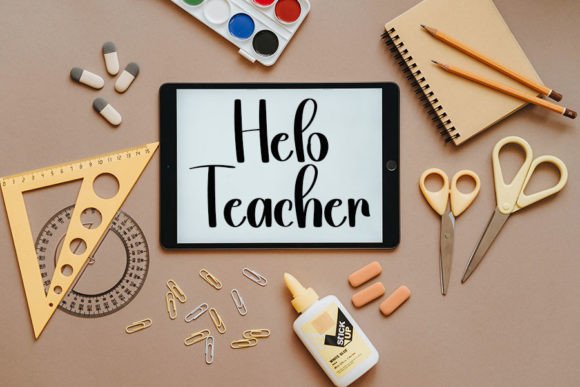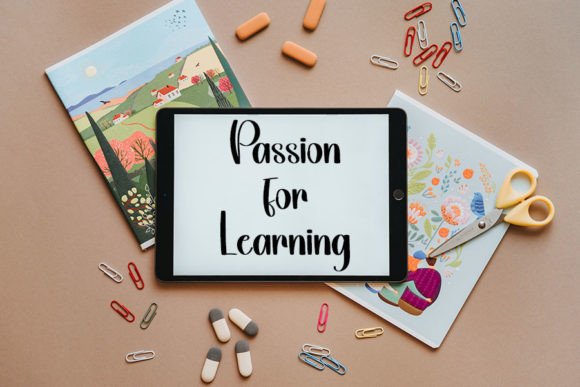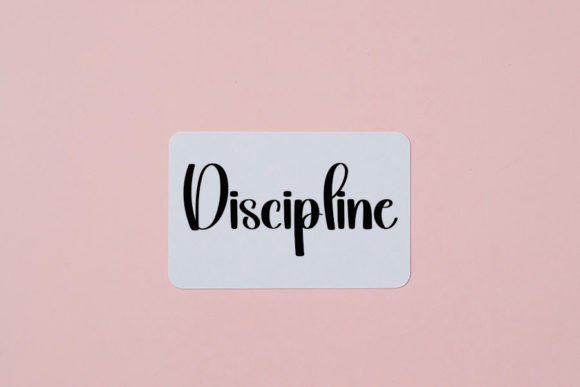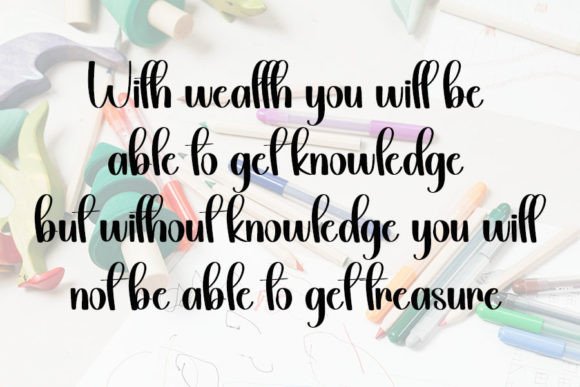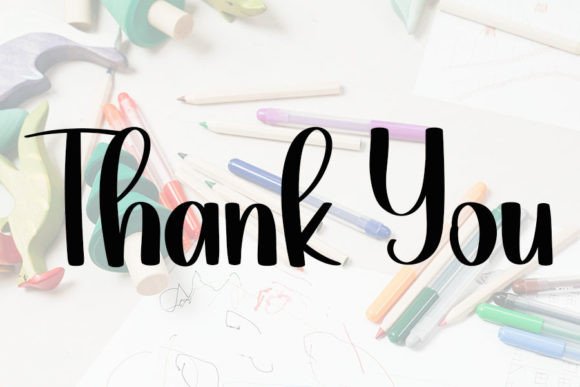
Introducing Go to School Font: Elevate Your Designs with Elegance
Are you on the lookout for a font that can add a touch of sophistication and luxury to your design projects? Look no further than the Go to School Font. This sweet and beautiful handwritten font is designed to make your designs stand out with its unique and elegant style.
What Makes Go to School Font Special?
Go to School Font is a handwritten font that features characters that dance along the baseline, giving it a playful and dynamic feel. The font’s elegant and cursive style makes it perfect for a variety of design projects, from luxury branding and advertising to packaging and stationery.
Key Features of Go to School Font
- Handwritten Style: Go to School Font is a beautifully crafted handwritten font that adds a personal touch to any design project.
- Elegant and Cursive: The font’s elegant and cursive style makes it perfect for designs that require a touch of sophistication.
- Dynamic Characters: The characters in Go to School Font dance along the baseline, giving the font a playful and dynamic feel.
- Luxury Appeal: The font’s unique style makes it perfect for luxury branding and advertising projects.
Use Cases for Go to School Font
Go to School Font is a versatile font that can be used in a variety of design projects, including:
- Luxury Branding: Use Go to School Font to create elegant and sophisticated brand identities.
- Advertising: The font’s unique style makes it perfect for advertising projects that require a touch of luxury and sophistication.
- Packaging: Add a touch of elegance to your packaging designs with Go to School Font.
- Stationery: Use the font to create beautiful and elegant stationery designs.
Tips for Using Go to School Font
Here are some tips for using Go to School Font in your design projects:
- Pair it with a Sans-Serif Font: Pair Go to School Font with a sans-serif font to create a beautiful contrast.
- Use it for Headings: Use Go to School Font for headings and titles to add a touch of elegance to your designs.
- Experiment with Colors: Experiment with different colors to find the perfect combination that works with your design.
Go to School Font is a beautiful and elegant handwritten font that can add a touch of luxury and sophistication to any design project. With its unique style and dynamic characters, it’s perfect for a variety of design projects, from luxury branding and advertising to packaging and stationery. So why wait? Download Go to School Font today and elevate your designs to the next level!